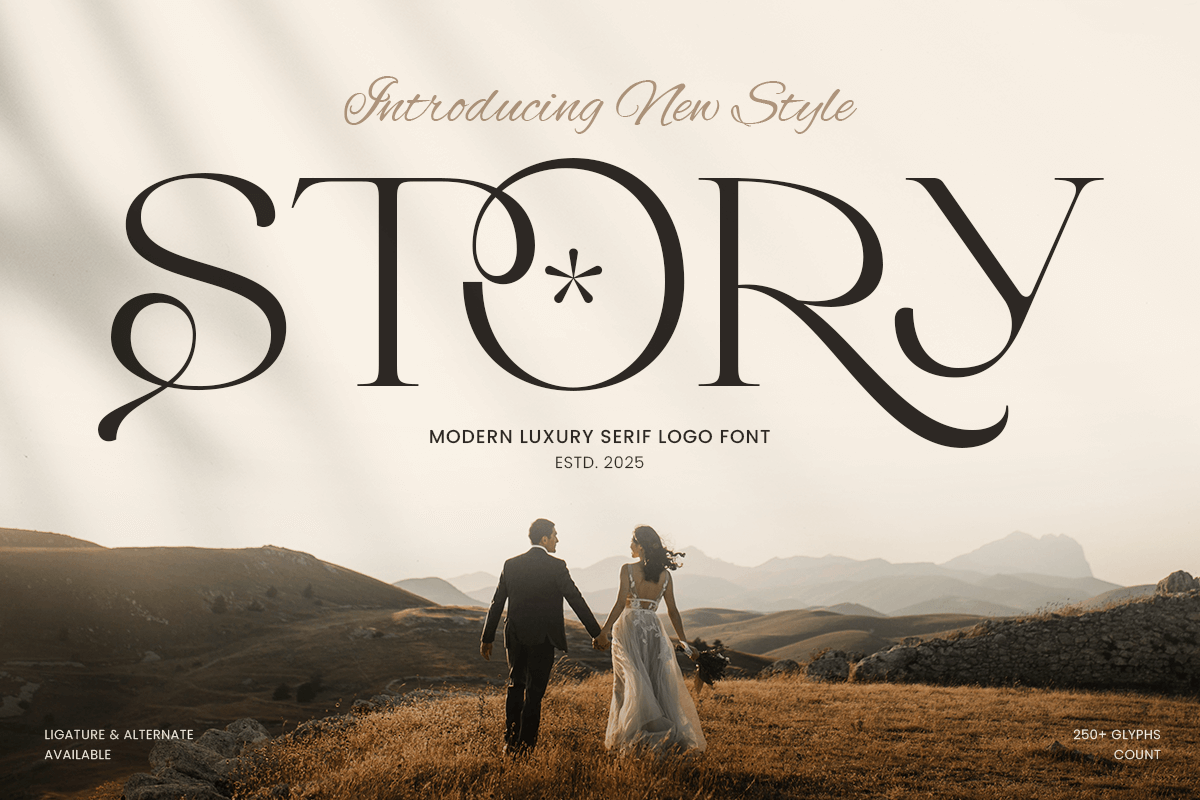
Story
-Modern Serif Logo FontStory - Modern Serif Logo Font
STORY is a modern luxury serif logo font designed for high-end branding, logos, and premium creative projects. Its refined and elegant letterforms provide a polished, professional, and luxurious appearance, ideal for fashion, lifestyle, and luxury brands.
With its modern yet sophisticated serif style, STORY ensures readability and timeless elegance in both digital and print media, making it perfect for designers seeking a premium serif typeface for branding.
STORY – Modern Luxury Serif Logo Font Features
Elegant and luxurious serif character set
Perfect for luxury branding, logos, and premium designs
OpenType features for extra versatility
Elevate your premium projects with STORY – the ultimate modern luxury serif font for sophisticated logo designs. ✨